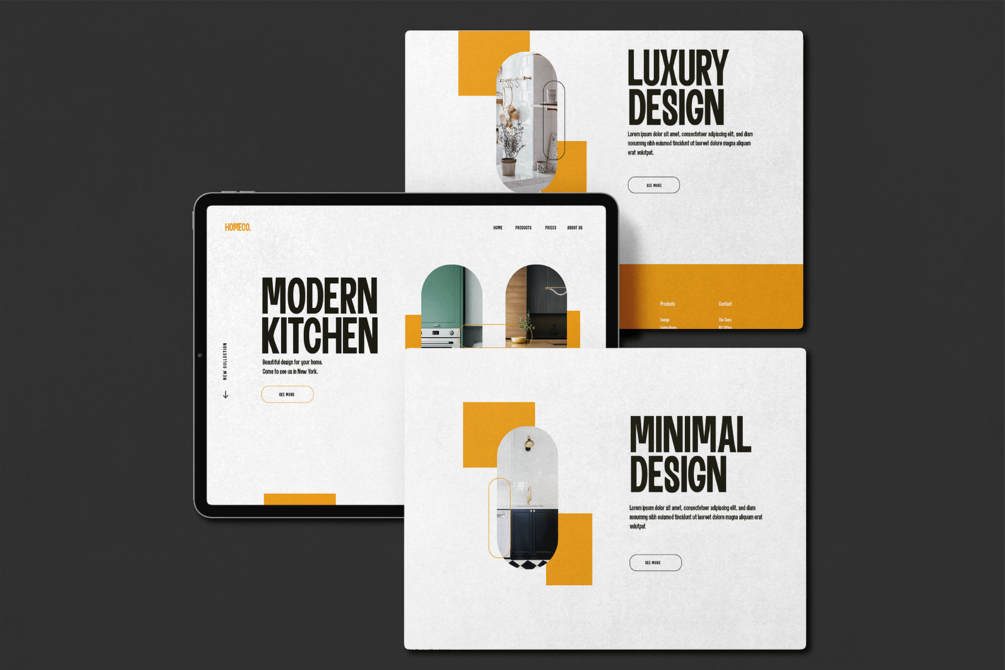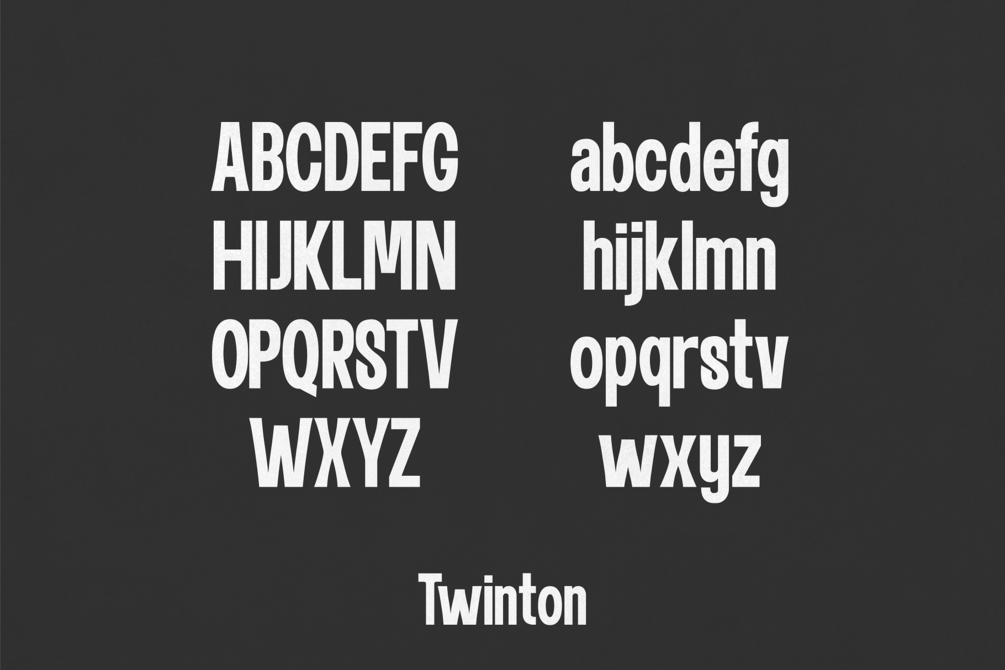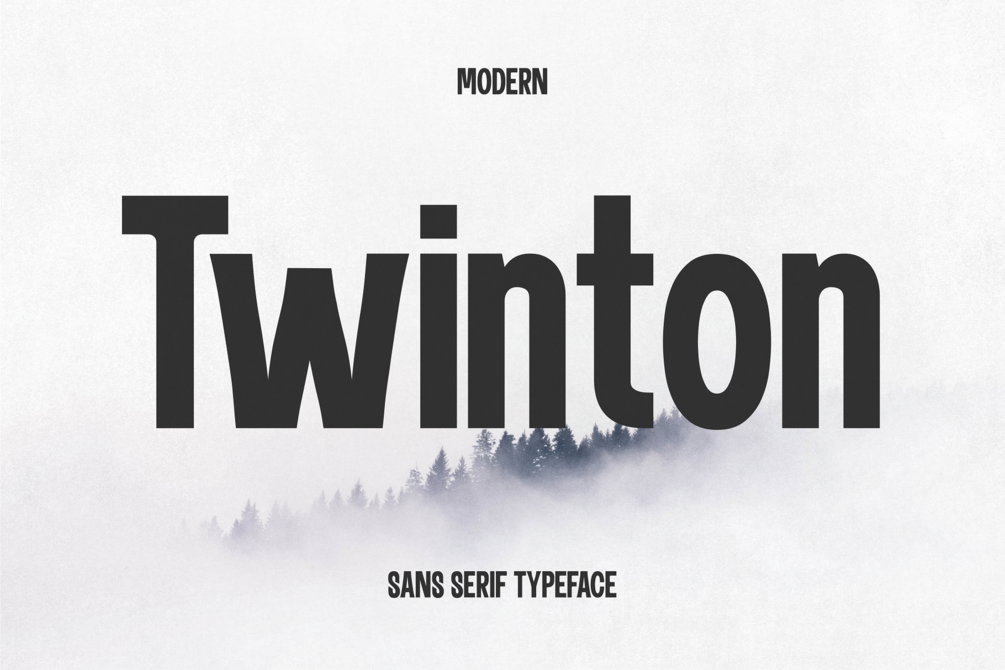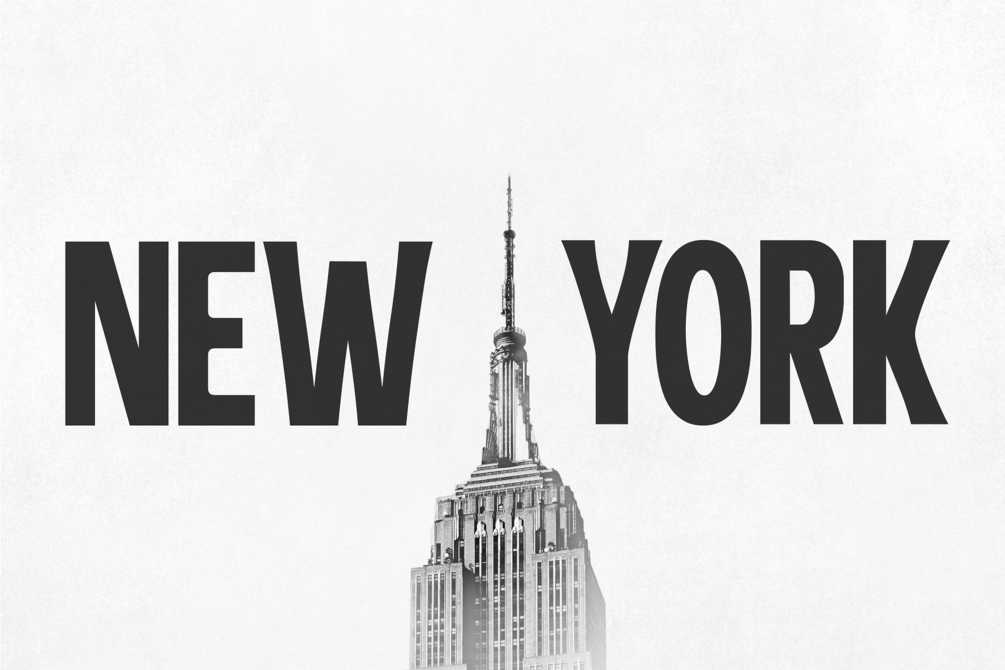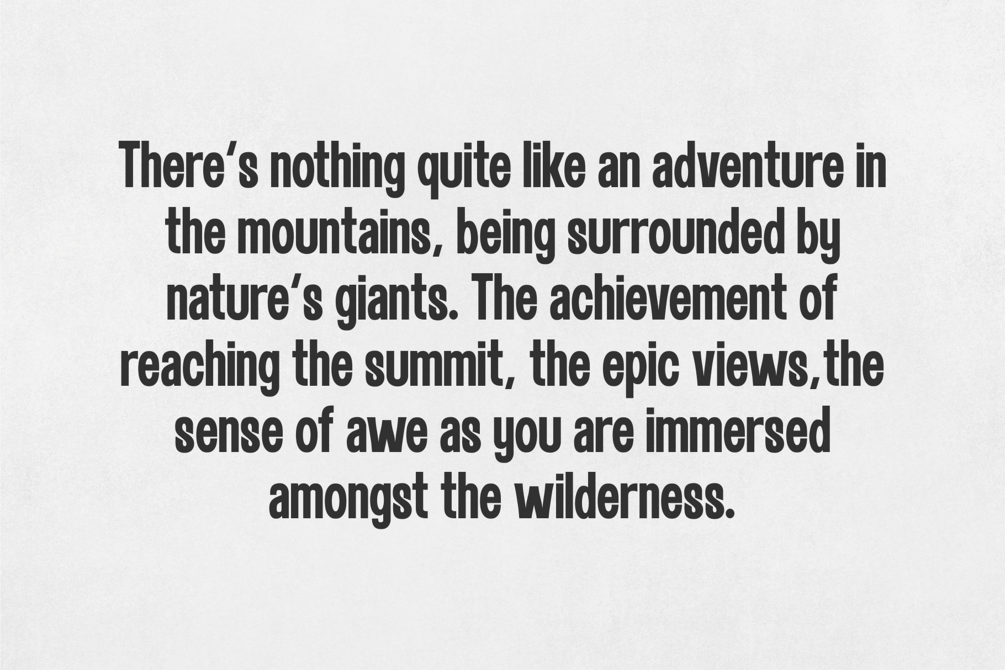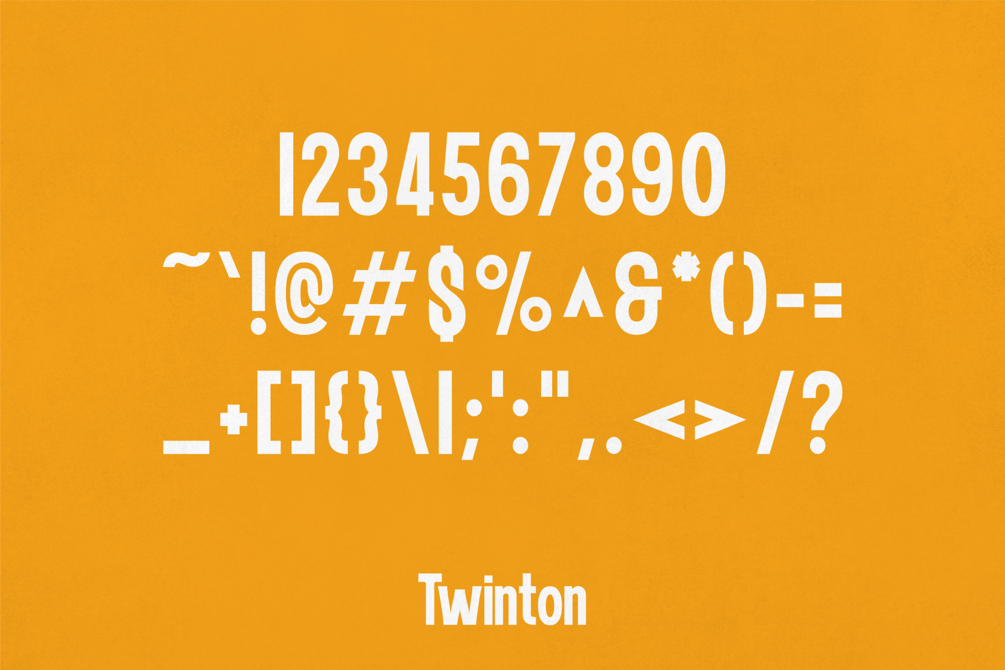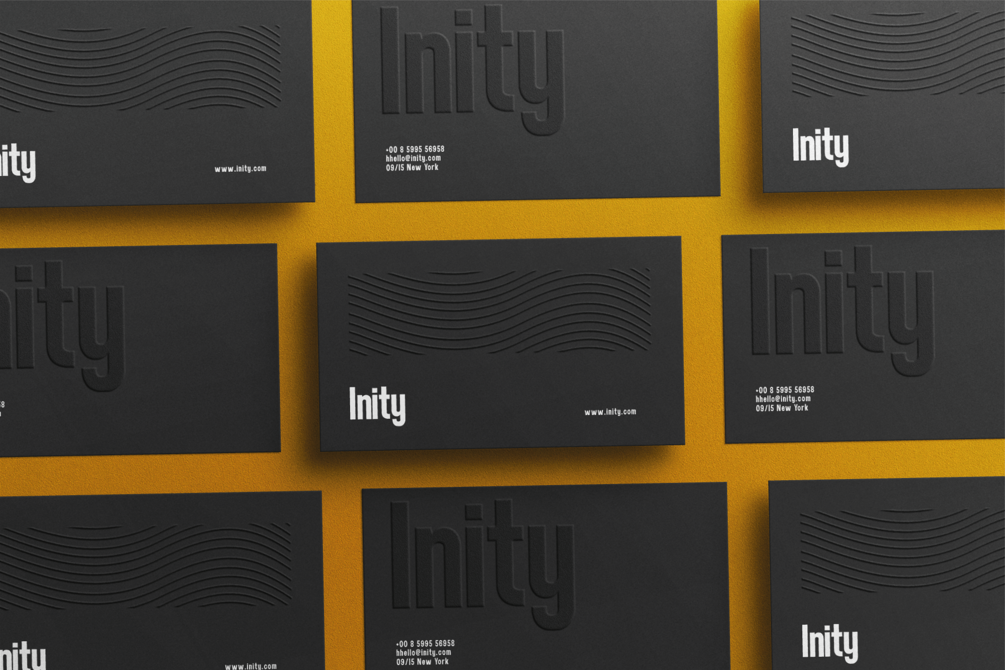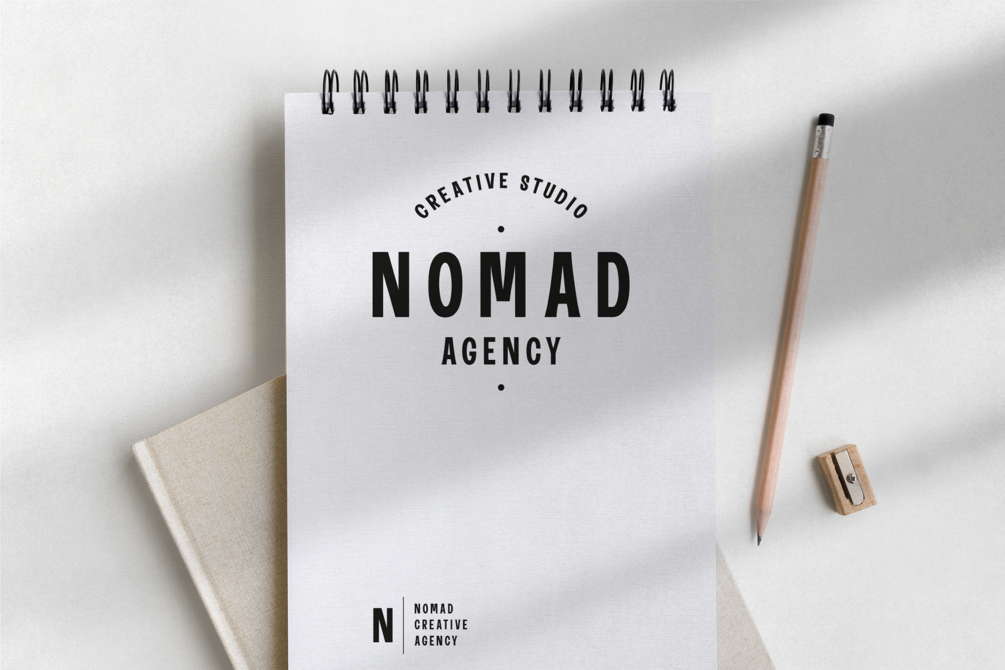
Twinton - Modern Sans
Twinton is a special font for modern designs. Its clean and minimal character is ideal for branding, headlines, fashion, thumbnails, social media, posters, covers, and pretty much anything you can think of. Twinton is designed for optimal legibility. Make a statement today with Twinton.